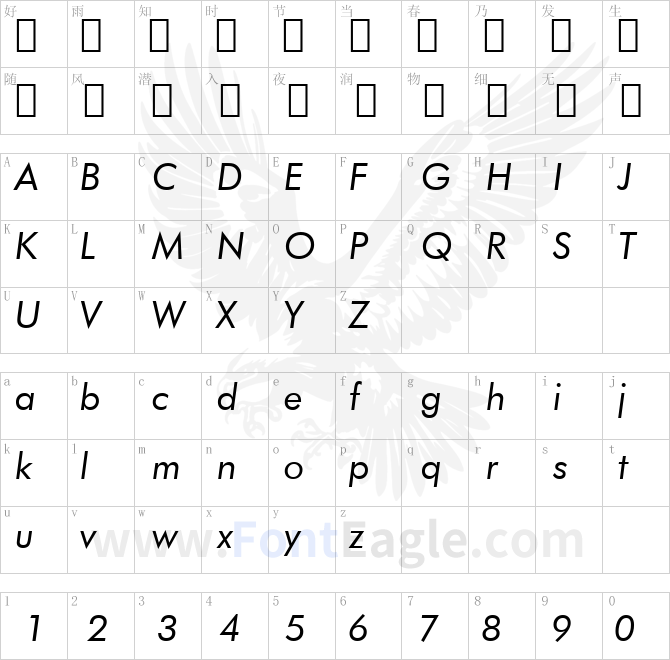
- Font name:Futura Bk BT
- Font Subfamily:Book Italic
- Font Subfamily ID:Futura Book Italic, Geometric 211
- Font Full Name:Futura Bk BT Book Italic